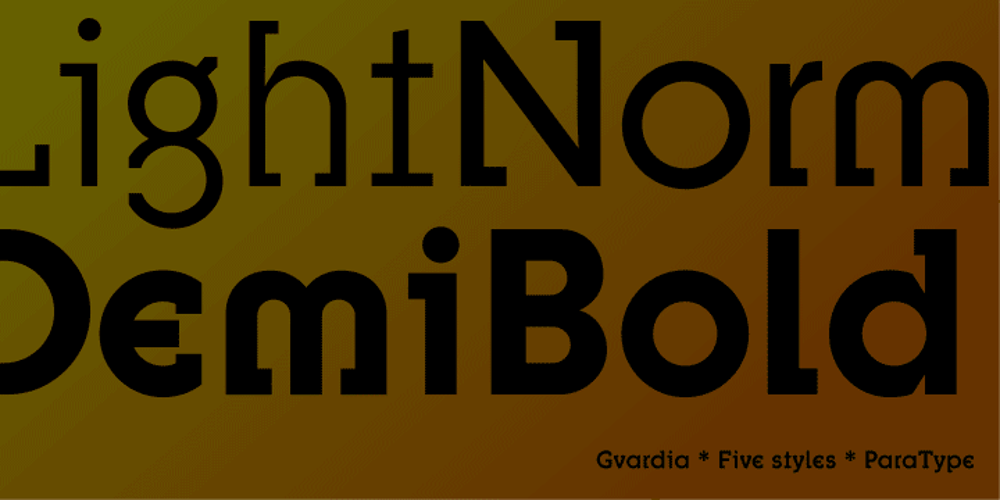
Gvardia
Gvardia font
Gvardia Font Family was designed by Oleg Karpinsky and published by ParaType. Gvardia contains 2 styles and family package options. Gvardia is a type family featuring two weights, designed by Oleg Karpinsky and licensed by Paratype in 2000-2001. While Gvardia shares some similarities in letterforms with the Ariergard typeface, it distinguishes itself with its unique slab serifs that consistently project towards the center of an em square. This design choice gives Gvardia a robust and structured appearance, making it particularly well-suited for advertising and display typography.Gvardia main characteristics:- 2 styles in total- 360+ glyphs in each style- 10 OpenType features- Latin and Cyrillic supportAnd if you need font files in different formats or want to try this font, just drop us a line at fonts@paratype.net, and we’ll work something out.